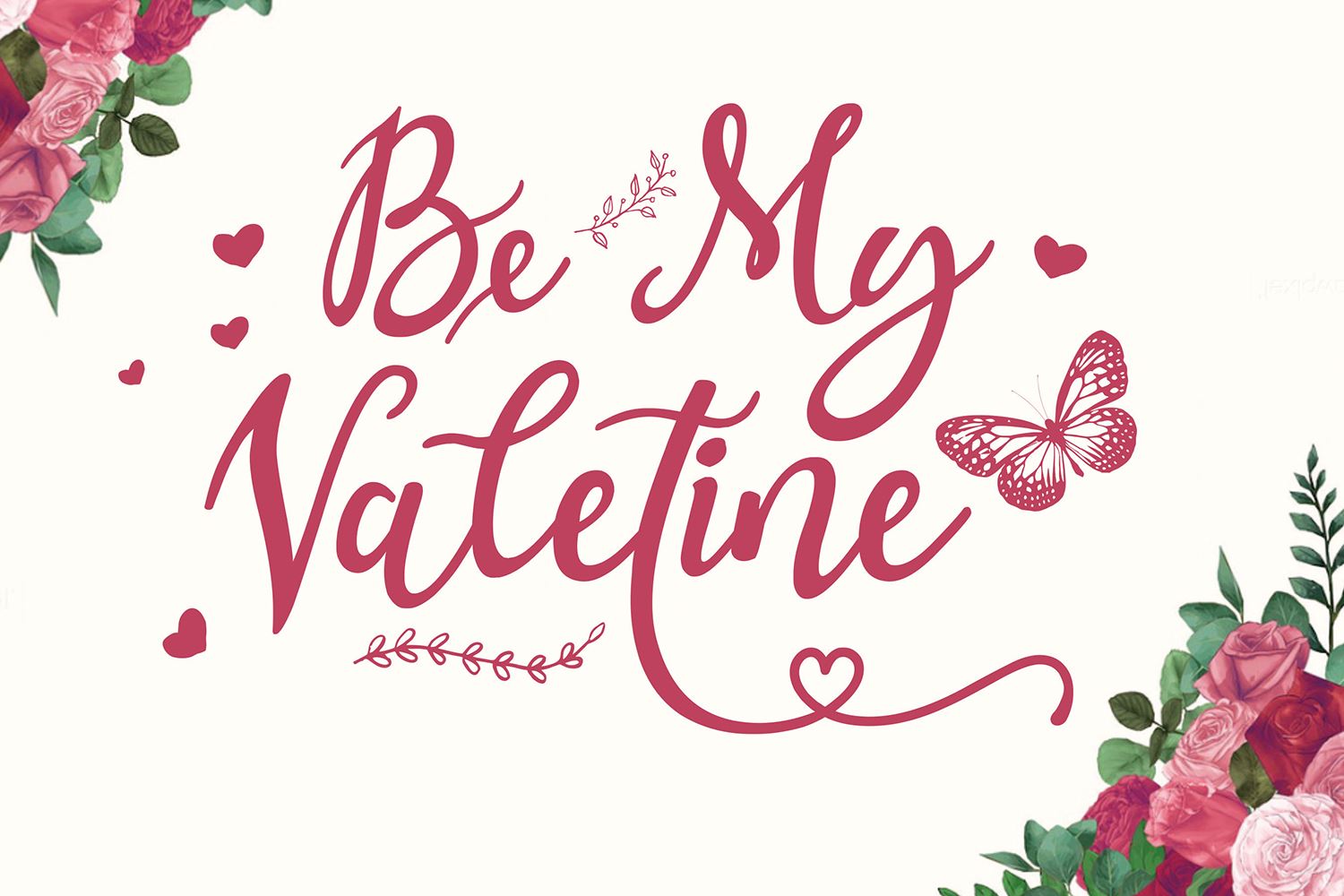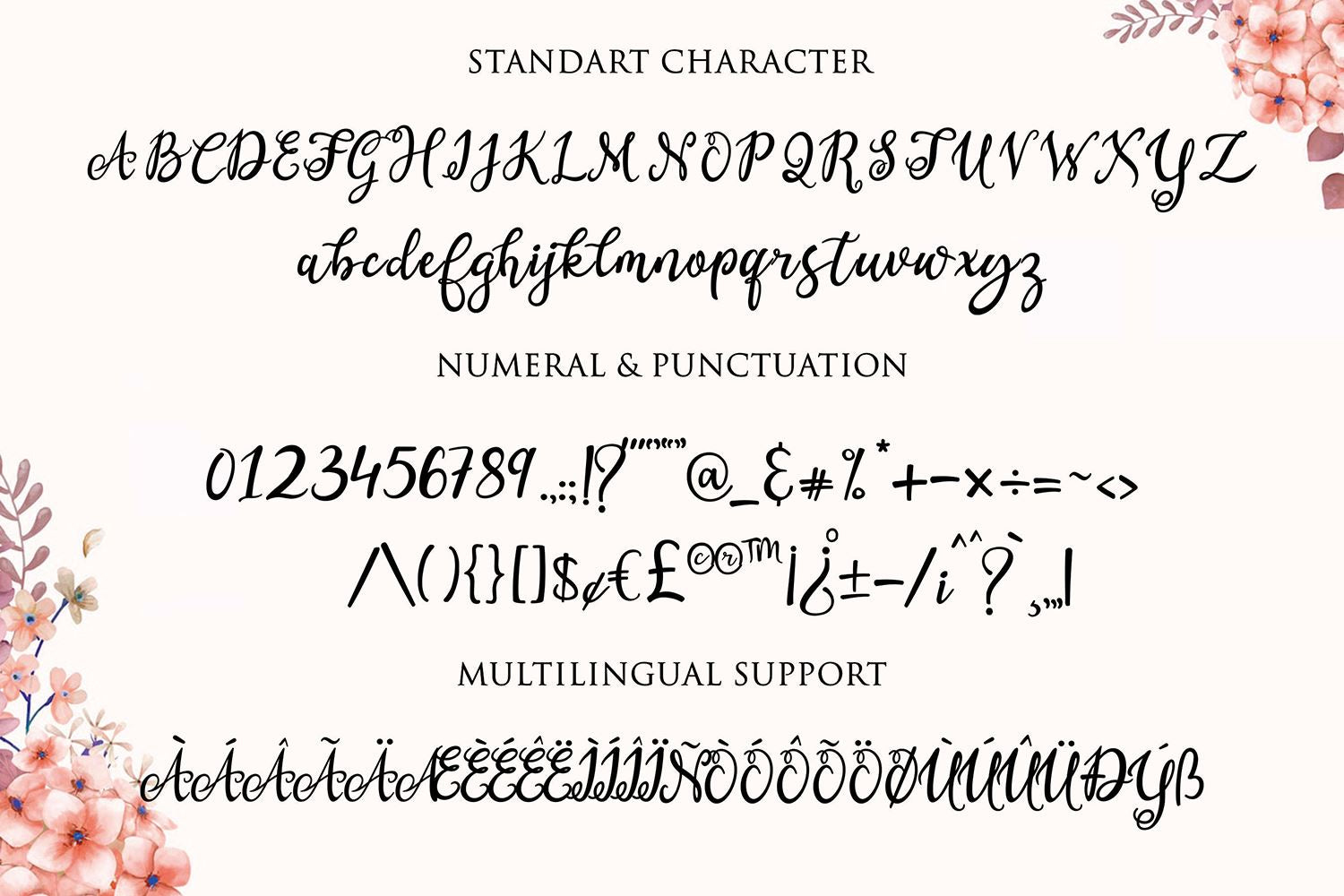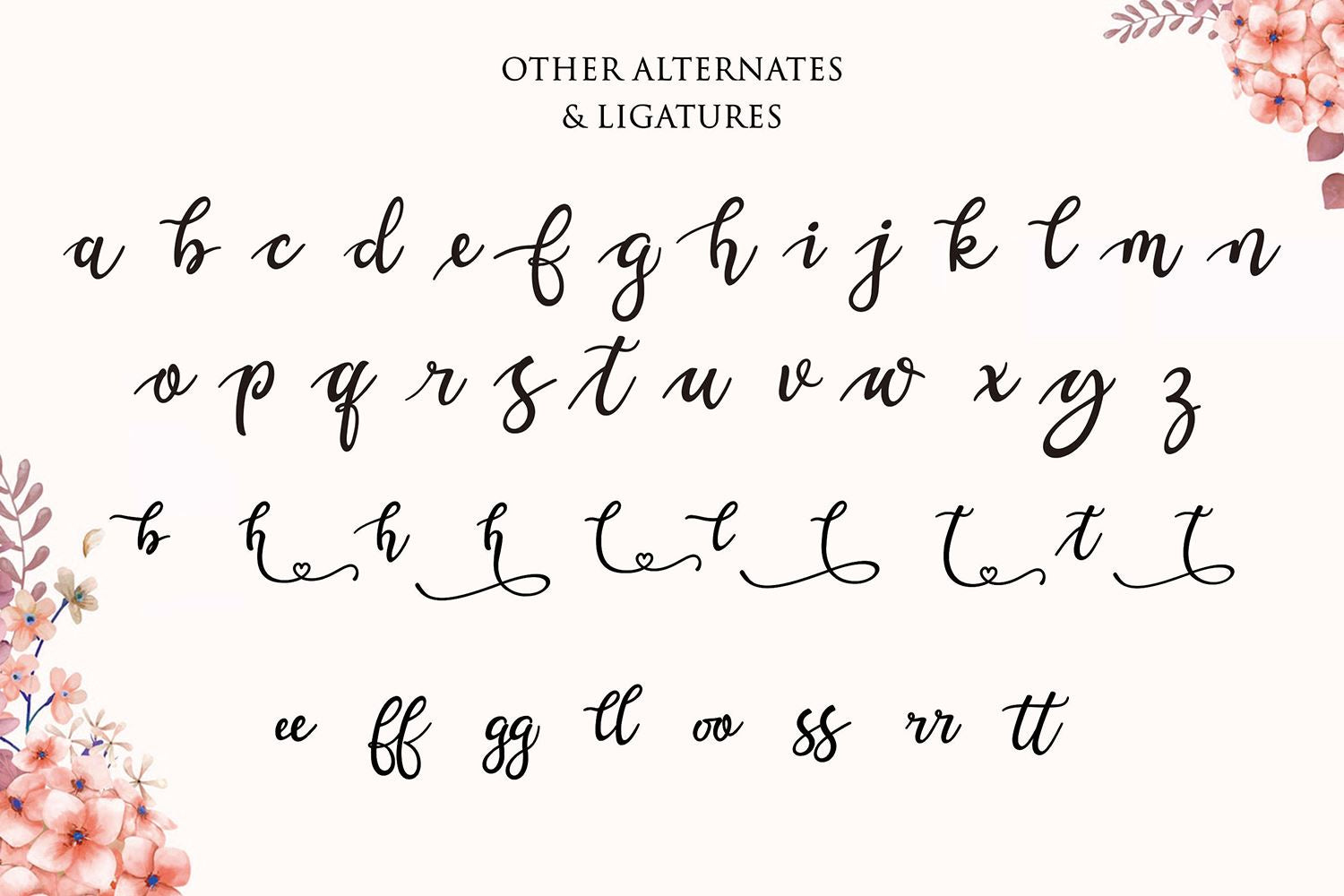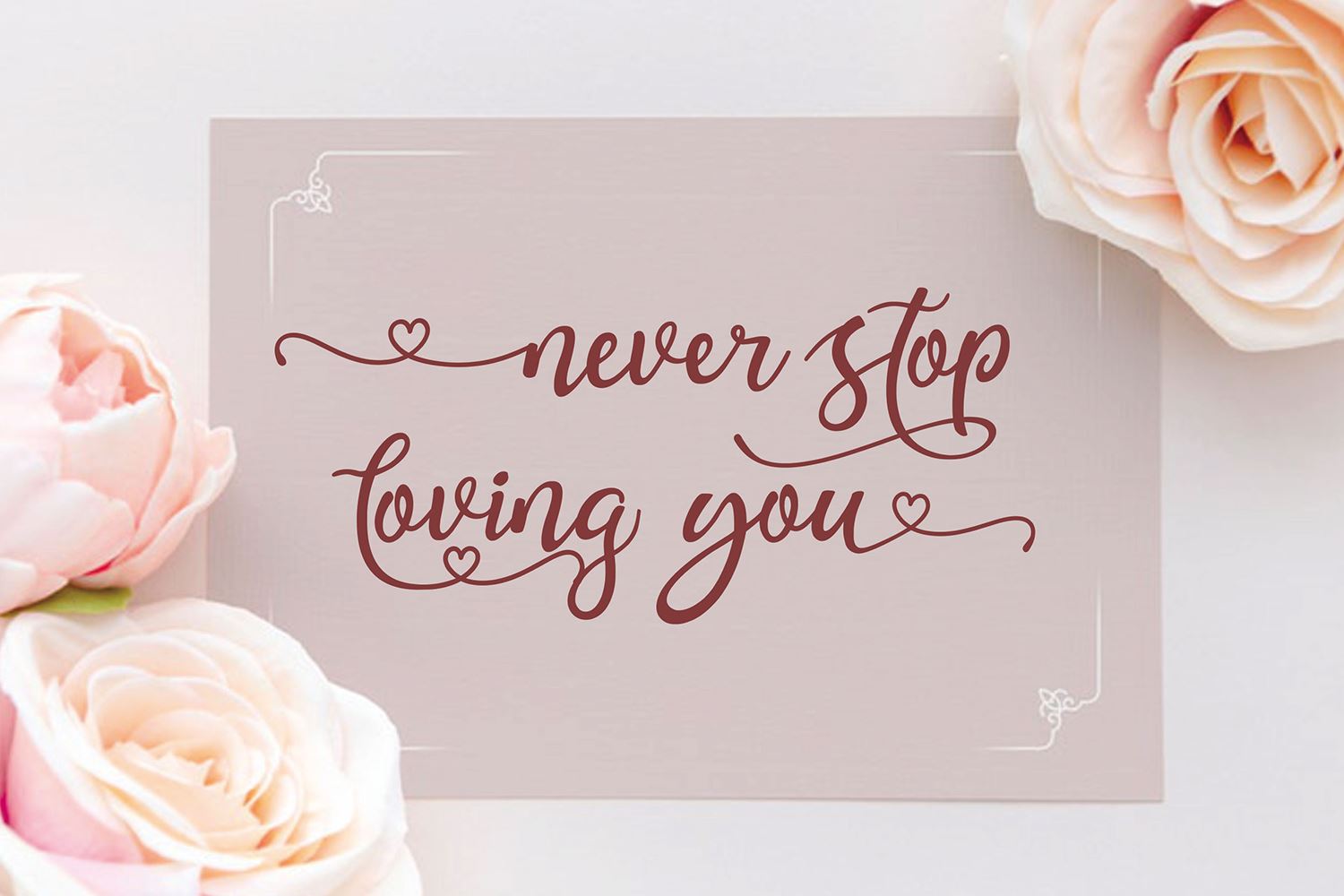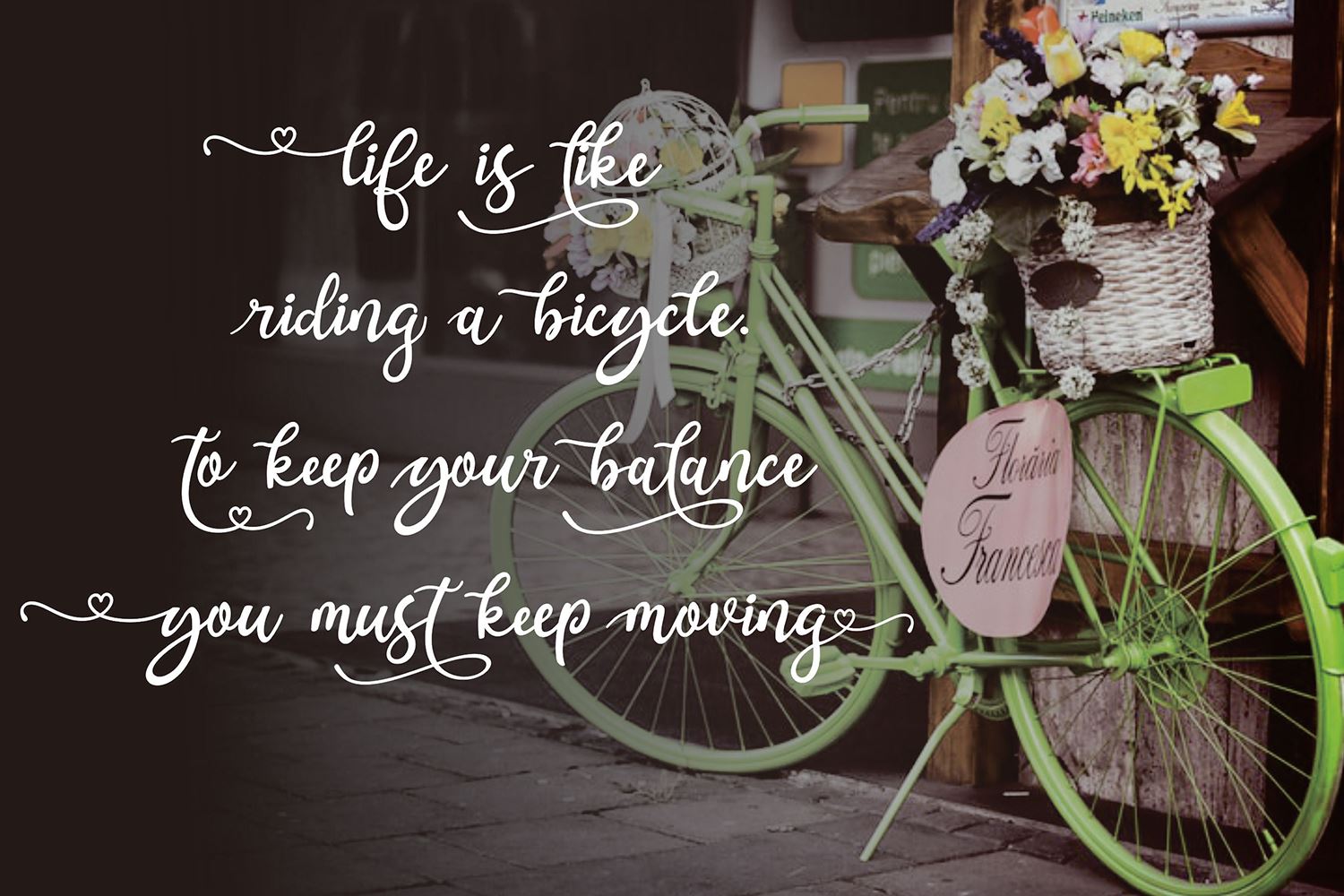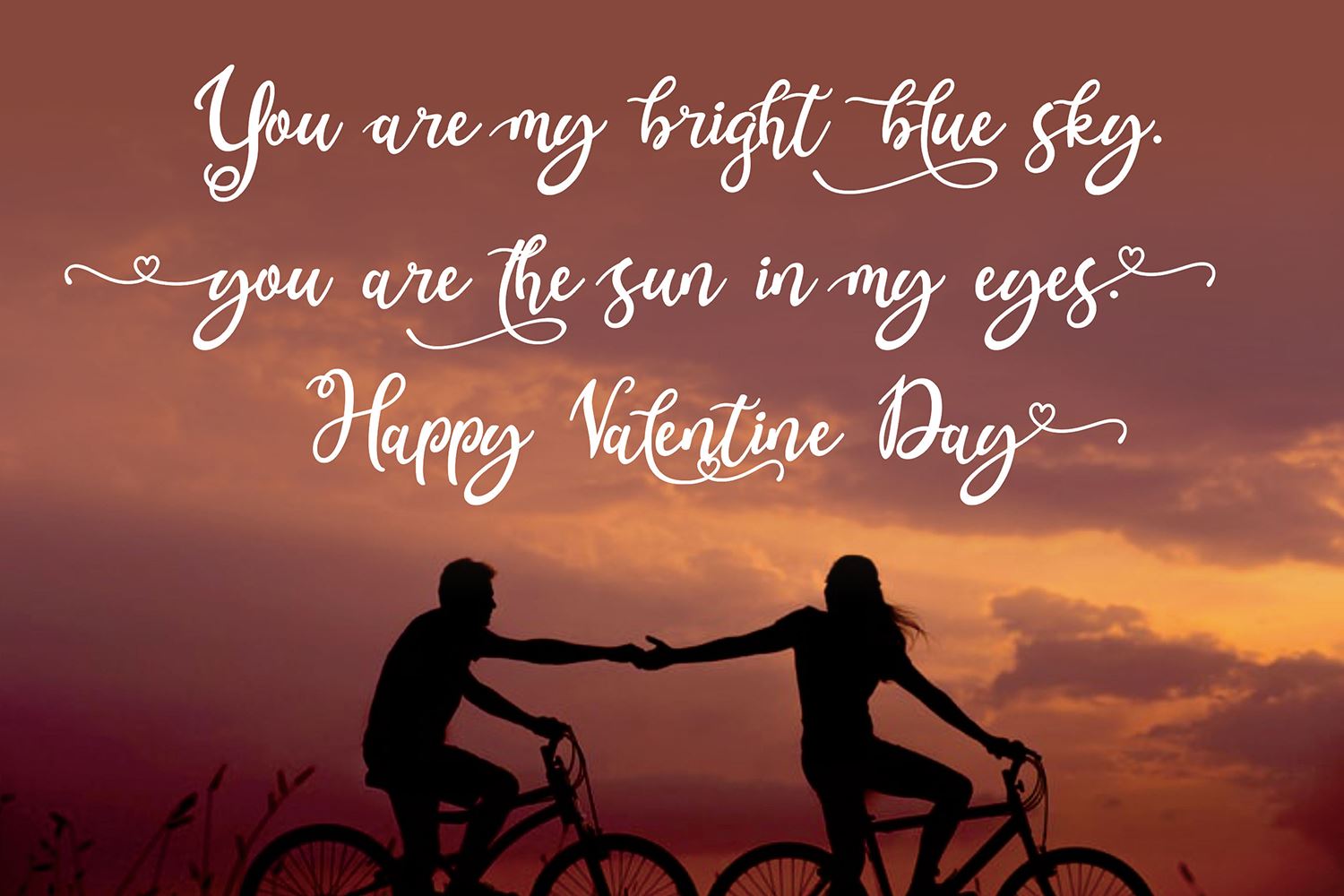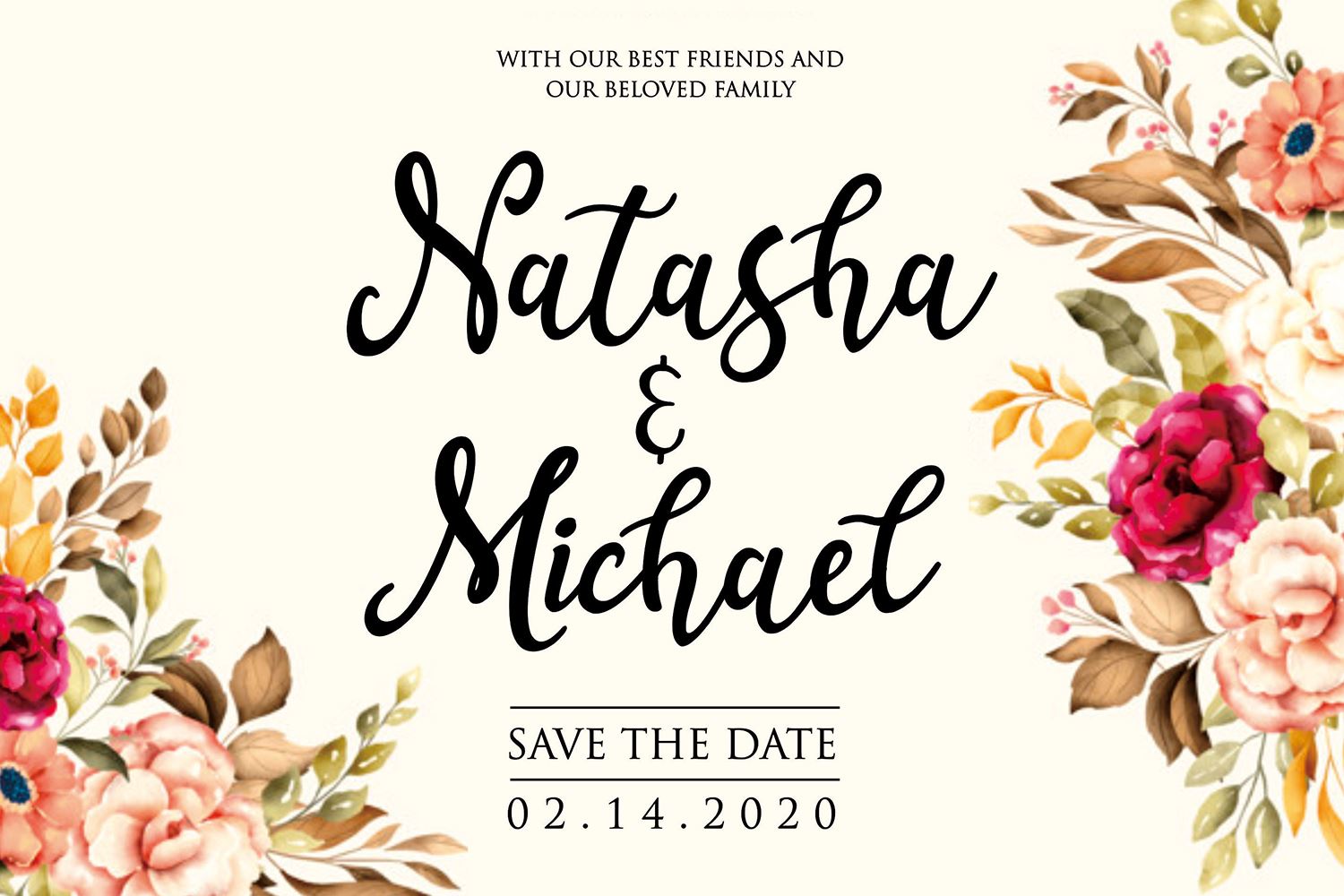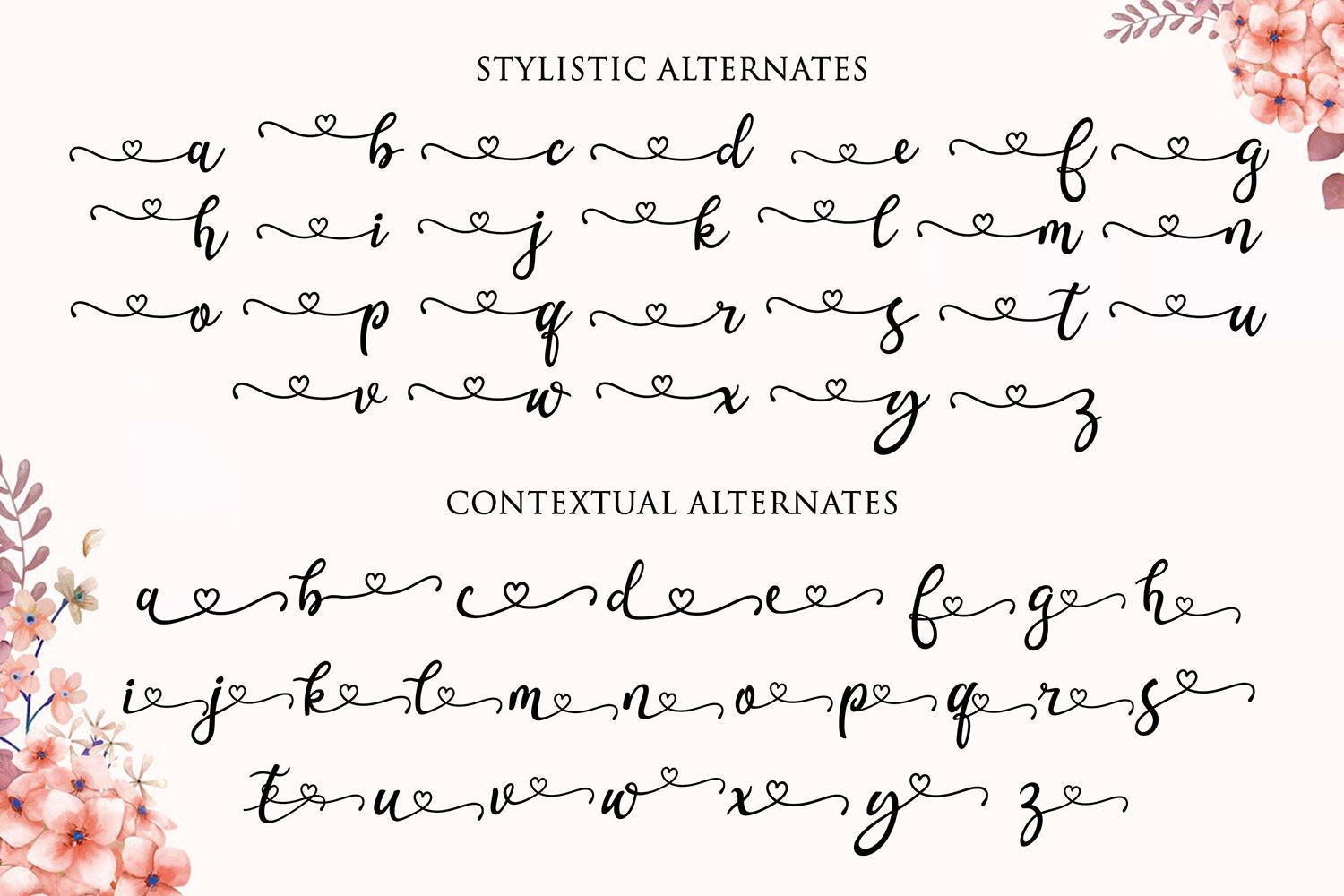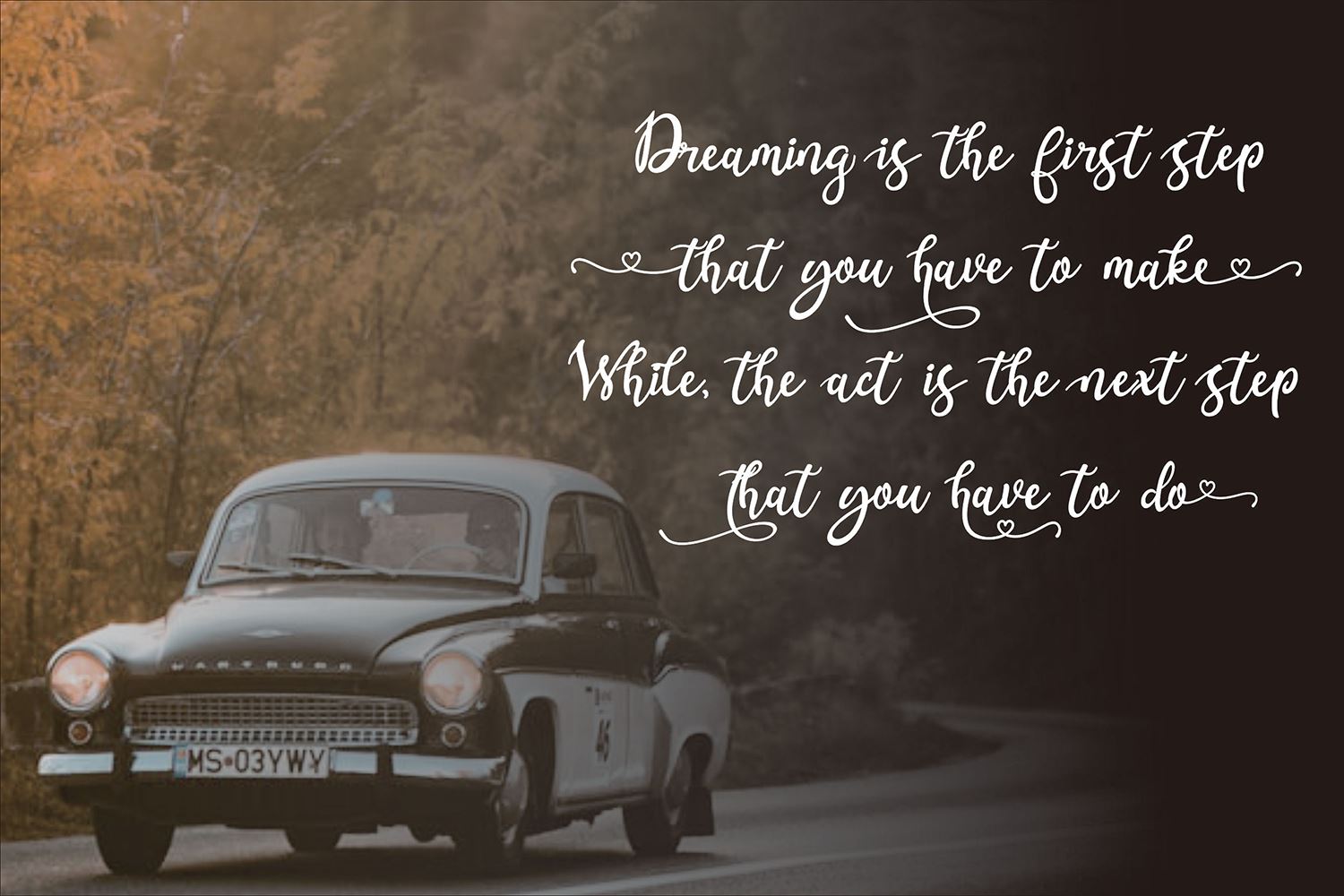
Valentina
About Valentina
As it’s name implies, Valentina is a charming, romantic font – perfect for weddings, Valentine’s Day and anniversary celebrations. It is packed with gorgeous heart swashes, elegant curls and twirls, and stunning ligatures. What Included this font : – TTF Font – OTFFont – PUA Encoded Characters – Fully accessible without additional design software. – Fonts include multilingual support for; Afrikaans, Albanian, Catalan, Danish, Dutch, English, Icelandic, Italian, Spanish, Portuguese, German, Swedish, Norweigen, Polish, Indonesian, Zulu and etc – Simple installations Thanks for downloading, and I hope you enjoy it!